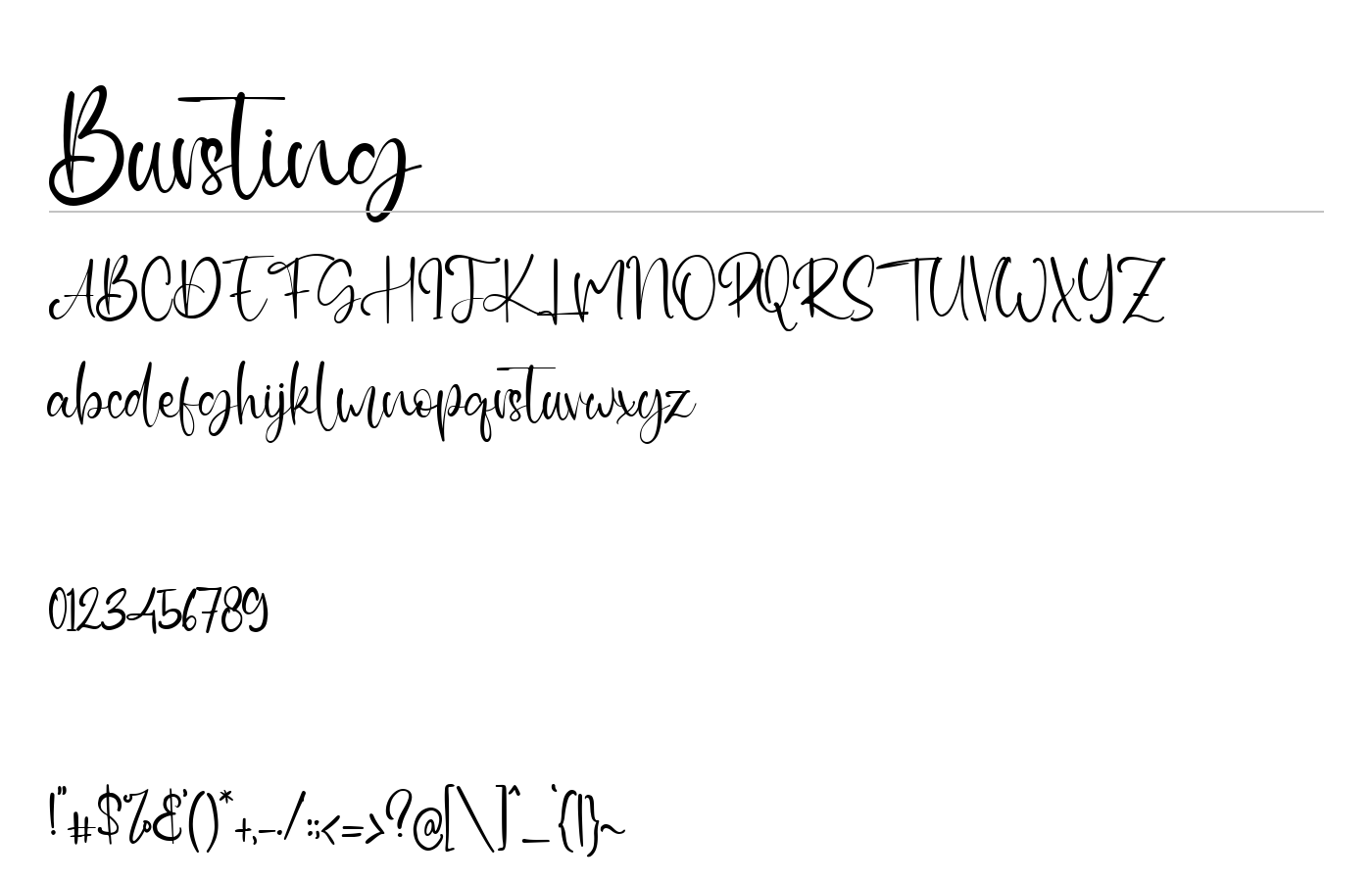
Bursting Font is a lively, handwritten script with a delicate and whimsical style, featuring tall, narrow letterforms and playful curves that give it a casual yet elegant personality. Its light weight and airy spacing make it ideal for creative projects like invitations, branding, and social media where a personal, artistic touch is desired. This font works best in headlines and decorative uses, adding charm and a friendly vibe without sacrificing readability.
Bursting Font
About Bursting Font